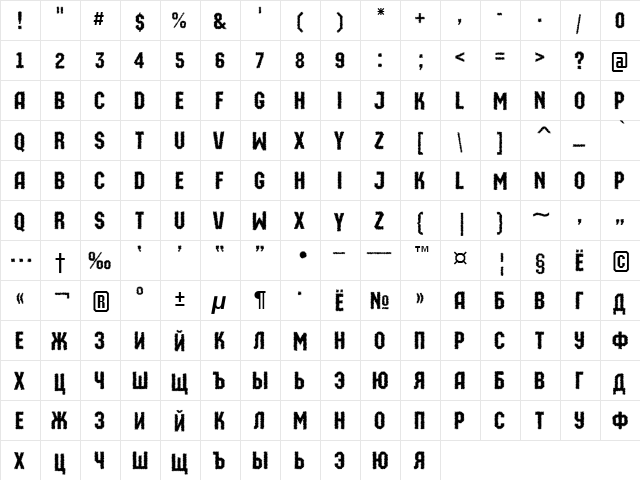
a_MachinaOrtoPrk Medium
Design Context for a_MachinaOrtoPrk Typeface
a_MachinaOrtoPrk is a composed and adaptable typeface that performs quietly and consistently across a wide range of design contexts.